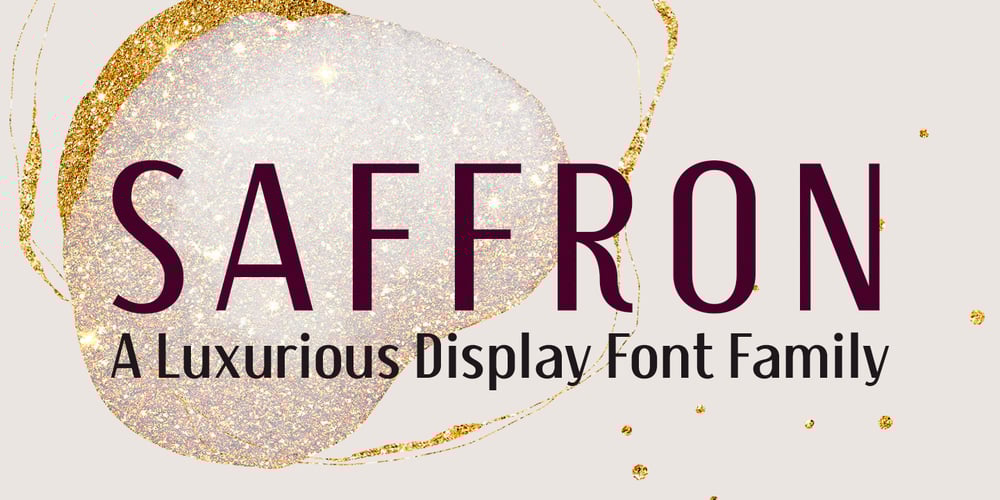
Saffron Font Family was designed by Dar Meyer and published by Tall Chai. Saffron contains 5 styles and family package options. Saffron is a contemporary, luxurious sans-serif font family with weights ranging from Light (300) to Bold (700).Features: Available in 5 weights Over 320 glyphs supporting extended Latin Ideal for display texts: Titles, Logos and Headlines etc. Perfect for branding and rebranding Supports OpenTypes features like Ligatures and Stylistic Alternates Symbols for 10 major currencies including Bitcoin provided in all weights